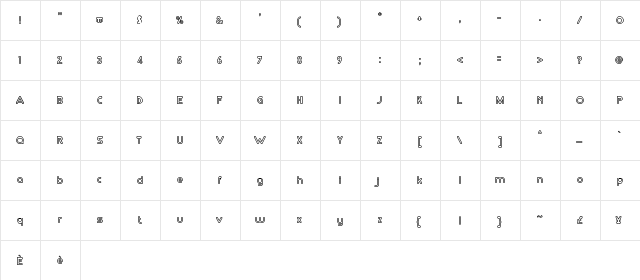
RM Playtime bold Regular
| Designer | Ray Meadows |
Design Context for RM Playtime bold Typeface
RM Playtime bold takes a measured approach to typography — its balanced proportions and neutral character make it a reliable workhorse for both digital and print work. The heavy weight commands attention and anchors typographic hierarchies.